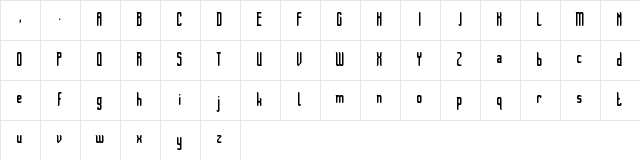
Pinophyta Regular Free Font
Pinophyta Regular
Design Context for Pinophyta
Pinophyta is a composed and adaptable typeface that performs quietly and consistently across a wide range of design contexts.